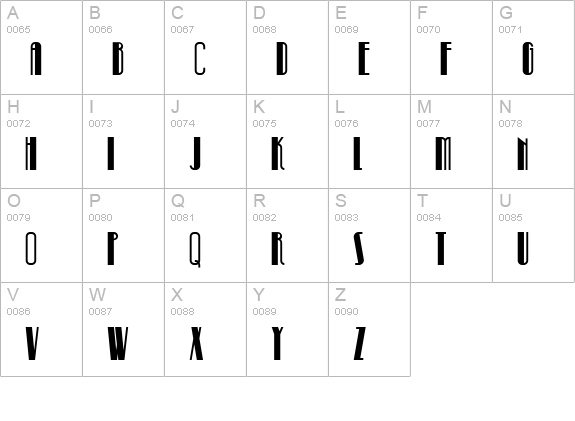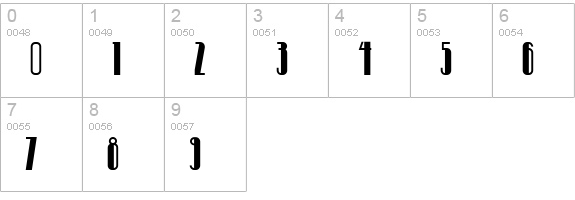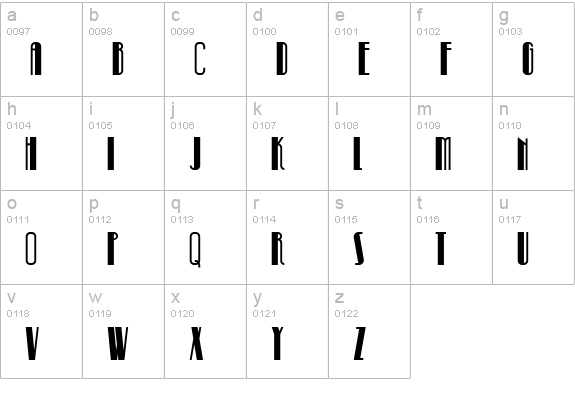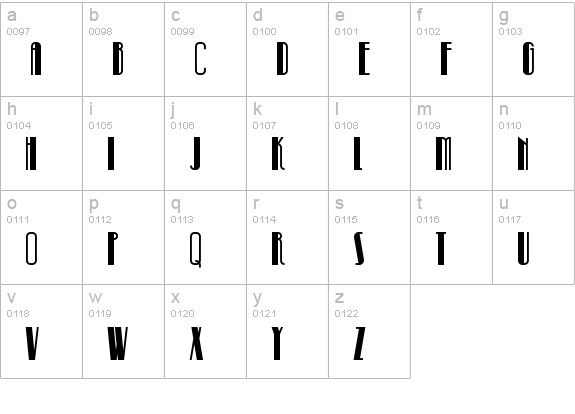
Pinball Whiz NF Font Details
Pinball Whiz NF font is a playful and retro-inspired typeface that captures the essence of the classic pinball games of yesteryear. With its bold and dynamic letterforms, this font exudes a sense of fun and excitement, perfect for adding a touch of nostalgia to your designs. The whimsical style of Pinball Whiz NF font makes it ideal for a variety of creative projects, from posters and flyers to branding and packaging. And the best part? Pinball Whiz NF font is completely free to download at FontsMarket.com. So go ahead and give your designs a vintage flair with this charming and eye-catching typeface. Let your creativity run wild with Pinball Whiz NF font, a free font that will truly make your designs stand out!